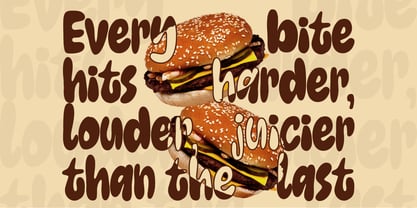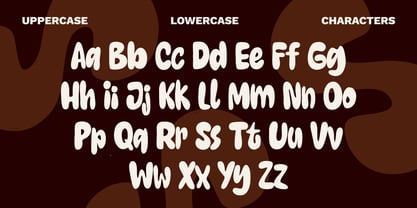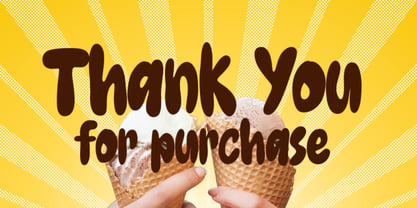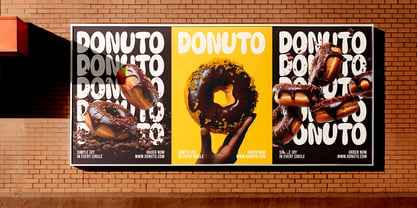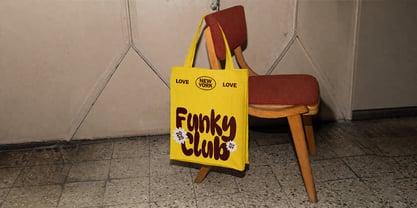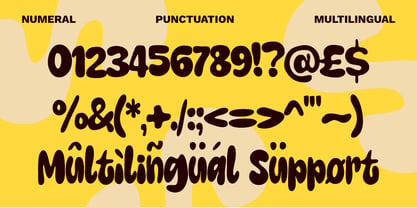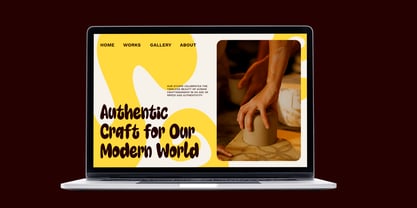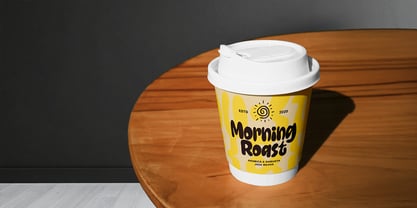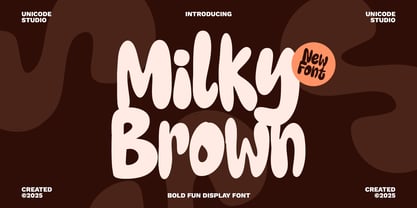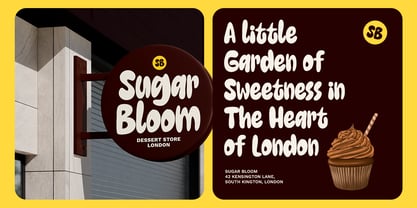
Milky Brown
The Milky Brown Font Family was designed by BOYHAQI . and published by Unicode Studio. Milky Brown contains 1 styles. More about this family
Milky Brown – Bold Fun Playful Display Font Milky Brown is a bold and playful display font designed with smooth, organic curves that bring a warm and friendly personality to any creative project. Its chunky and bubbly letterforms make it perfect for eye-catching titles, kids-related designs, packaging, branding, posters, and fun digital content. With a handcrafted feel and modern playful style, Milky Brown helps your design stand out with charm and high visual impact. This font is easy to use across both print and digital projects, offering clean outlines and professional-quality vector shapes. Ideal for designers, creators, and brands looking for a joyful and approachable look.